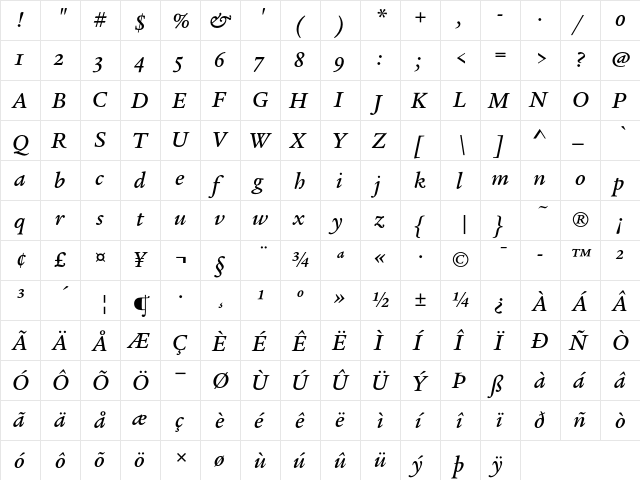
Legacy Serif ITC Medium Italic OS Font Preview
Legacy Serif ITC Medium Italic OS
Design Context for Legacy Serif ITC Typeface
Legacy Serif ITC carries the refined structure of traditional serif typography, with bracketed terminals and considered proportions that communicate credibility and craft. The dynamic lean of this cut emphasises speed and emphasis in any layout.